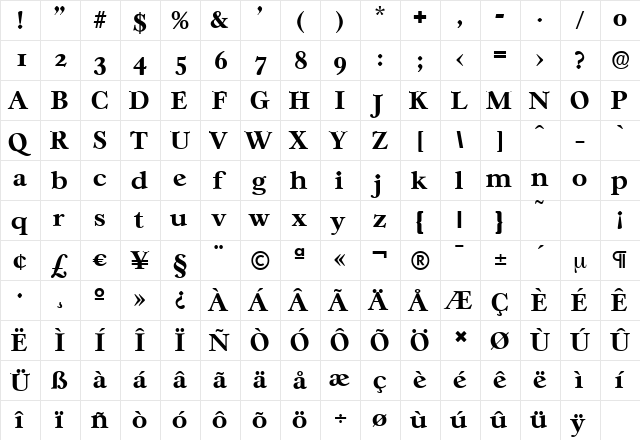
CasablancaSerial-Xbold Regular Font Preview
CasablancaSerial-Xbold Regular
CasablancaSerial-Xbold Regular Font Details
Design Context for CasablancaSerial-Xbold Typeface
CasablancaSerial-Xbold takes a measured approach to typography — its balanced proportions and neutral character make it a reliable workhorse for both digital and print work. The heavy weight commands attention and anchors typographic hierarchies.